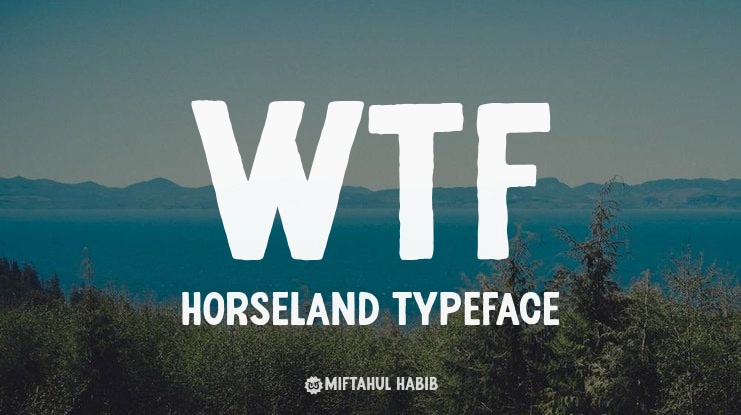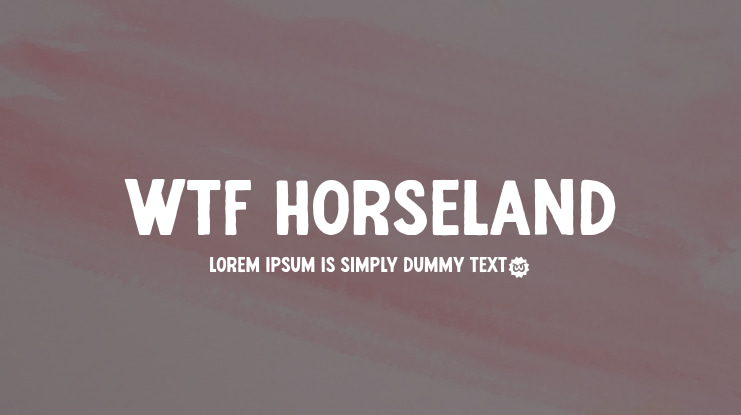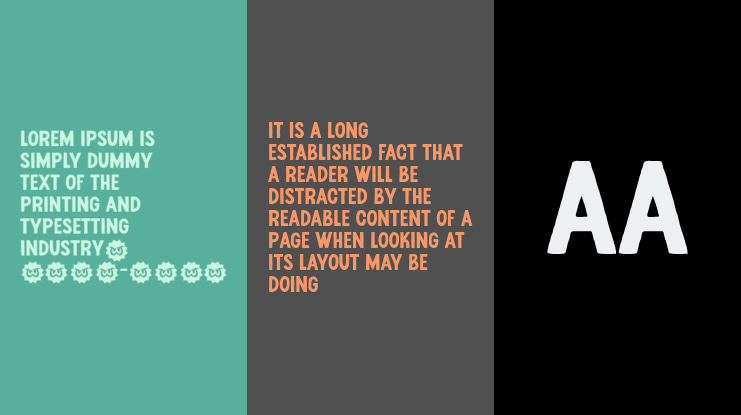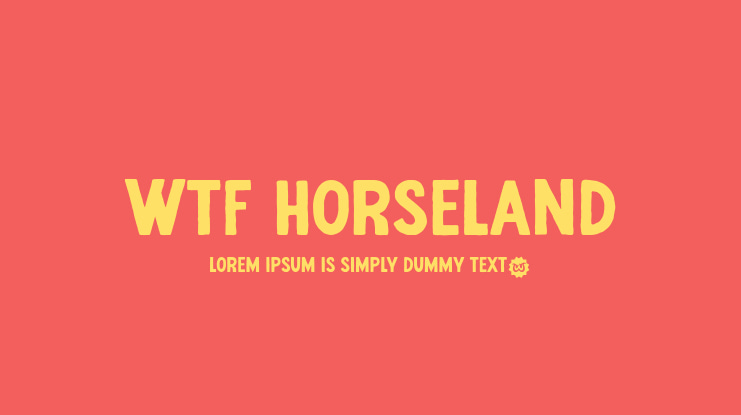
Horseland is a hand-drawn vintage typeface font with a charming and nostalgic feel. This font captures the essence of handcrafted lettering, effortlessly evoking a sense of authenticity and warmth. The textured appearance of Horseland adds depth and character to your designs, making it perfect for projects that aim to achieve a vintage aesthetic.
The font has four distinct styles:
Regular: This style showcases the essence of the hand-drawn letterforms with its intricate details and imperfect lines.
Stamp: The stamp style mimics the look of stamped ink, giving your designs a rustic and aged feel.
Slant Underline: Adding a slanted underline to the regular style, this variation adds a touch of dynamism to your typographic compositions.
Outline: The outline style provides a unique way to highlight and emphasize the letterforms, allowing for versatile and eye-catching designs.
Whether you're creating logos, posters, packaging, or any other design project that requires a vintage and hand-drawn look, Horseland is an excellent choice that brings both character and authenticity to your work.